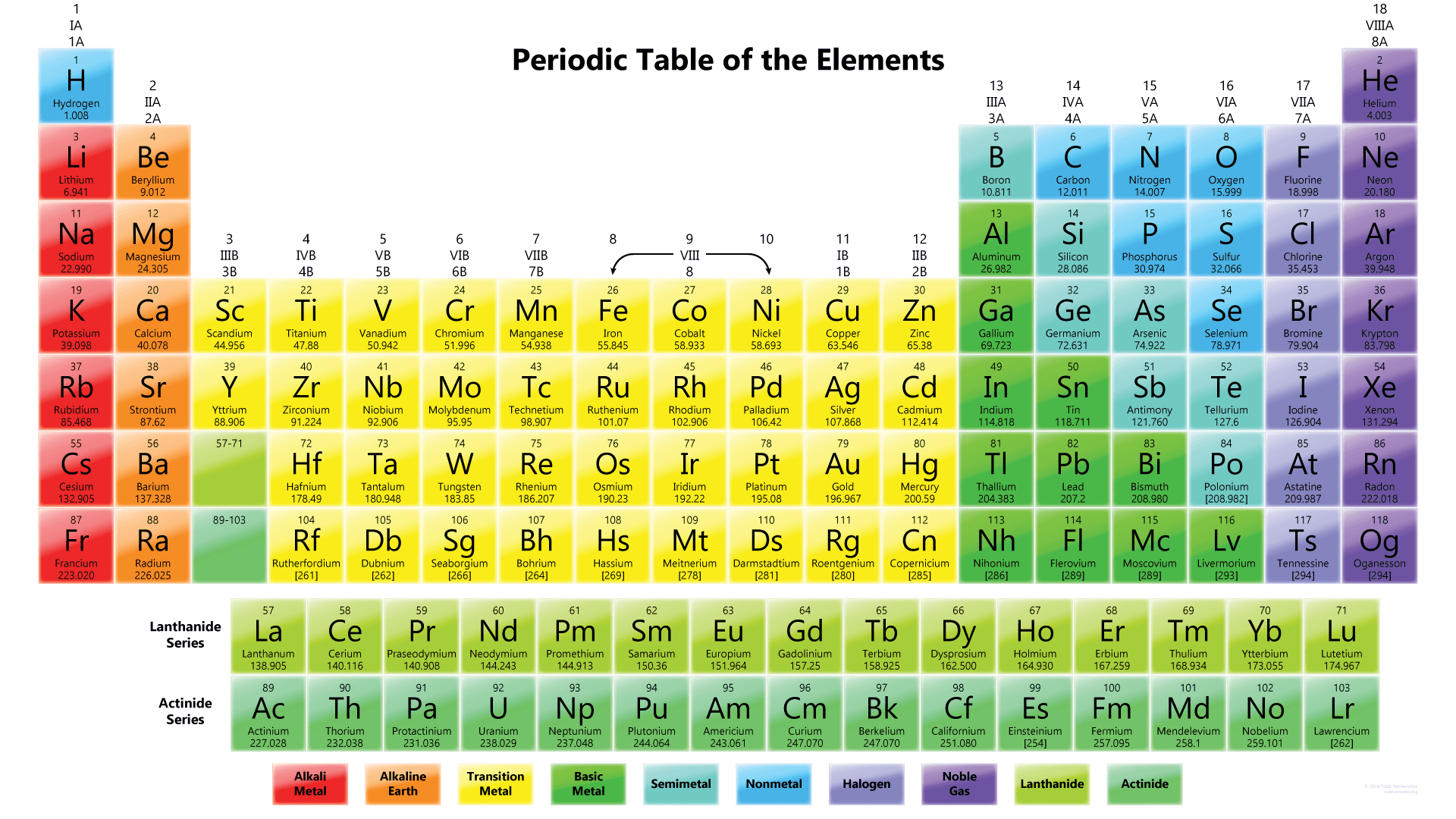
Periodic Table Font Generator
Nihonium (Nh 113) Muscovium (Mc 115) Tennessine (Ts 117) Oganesson (Og 118) Fictional Elements Are Added To Make All Words Possible.
Use Chemical Elements And Subatomic Particles To Spell Words.